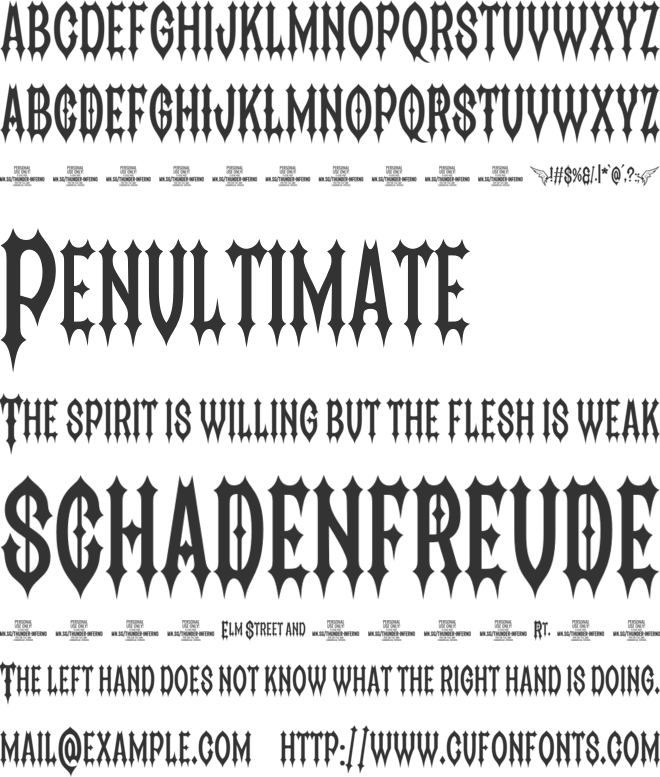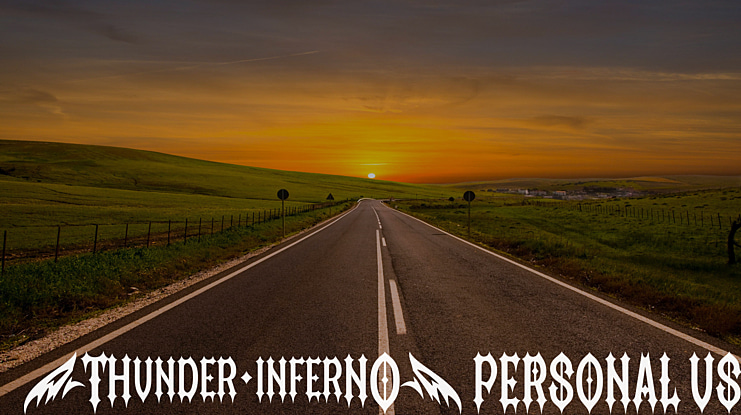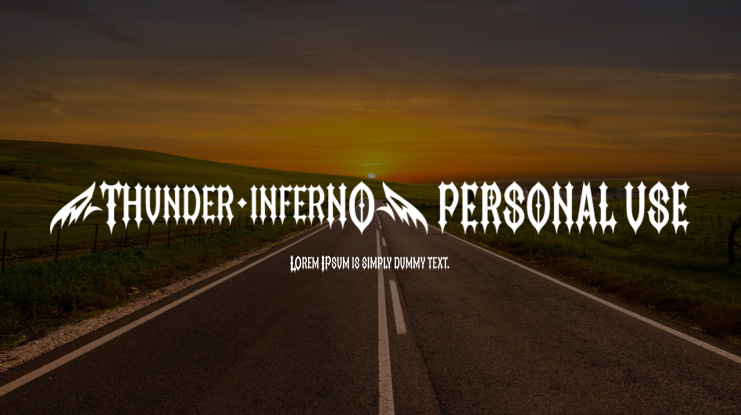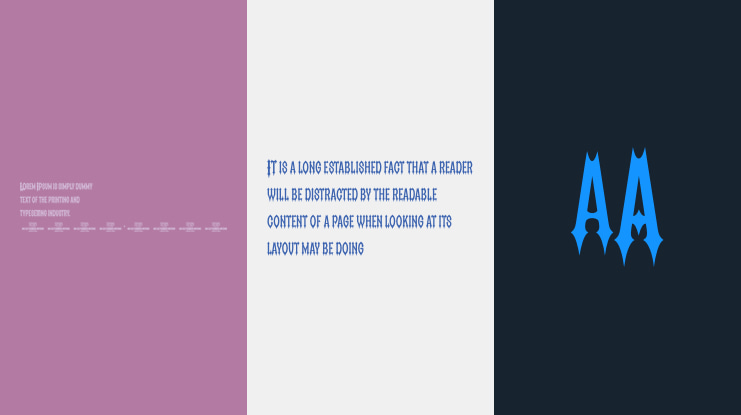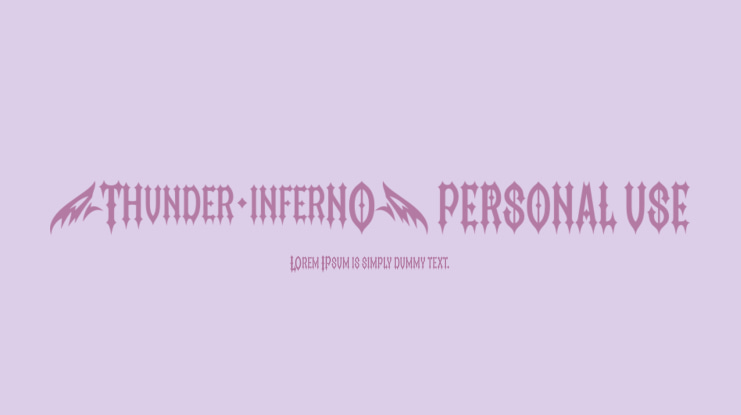
Thunder Inferno PERSONAL USE Font
Thunder Inferno is a gothic black metal typeface that features sharp serifs. Inspired by the aesthetics of heavy metal and the occult, this font embodies darkness and intensity.
To achieve a symmetrical heavy metal style, capitalize the first and last letters of any word. For example: Heavy metaL
To give a word wings, enclose it in ( ), [ ], or { }. For example: {HawkstylE}